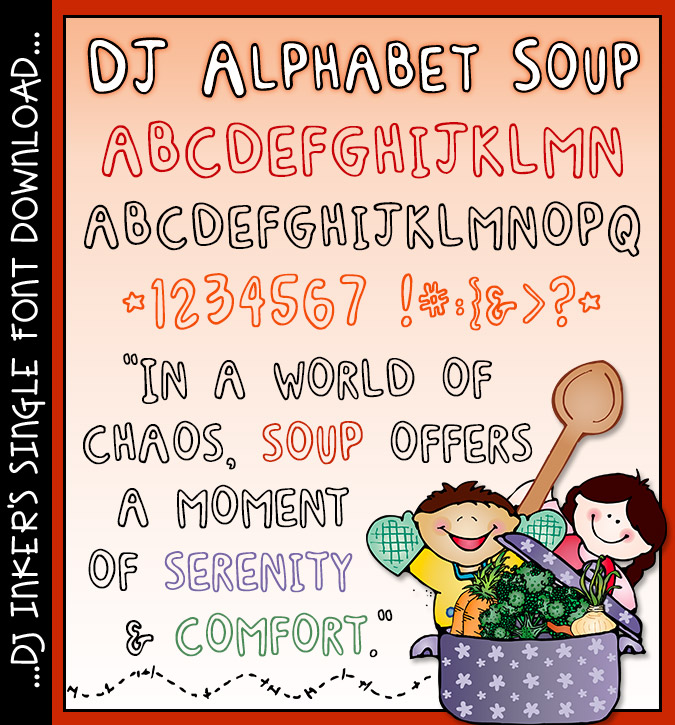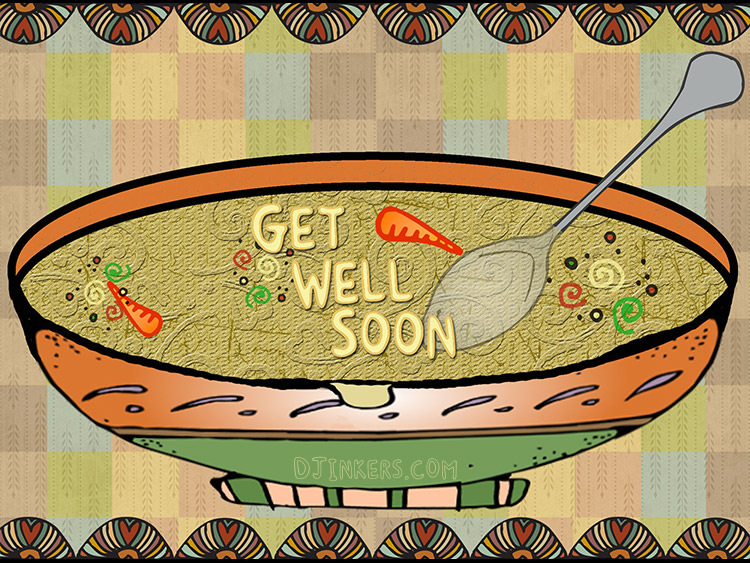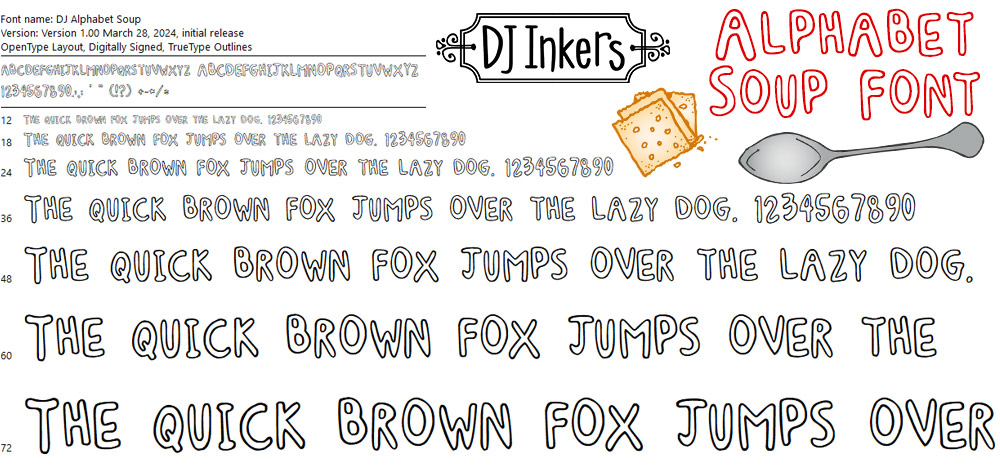
DJ Alphabet Soup Font Download
Mmmmm - Nothing adds a nice warm smile to your projects like a good font. We've added a touch of whimsy, some round block lettering and a whole lotta love to our DJ Alphabet Soup font! Serve
it up on your cookbooks and recipes, alphabet learning games, headlines,
posters and creative fun for home. school or the kitchen. :)